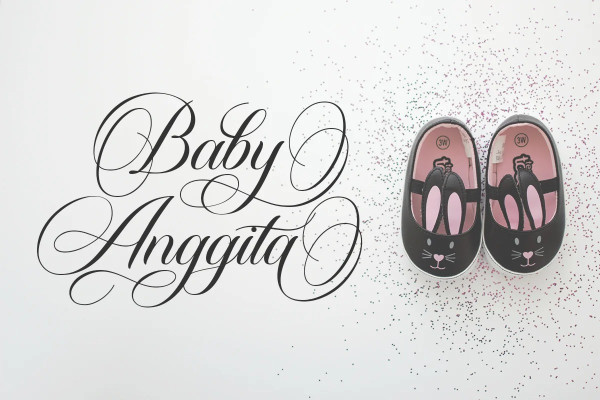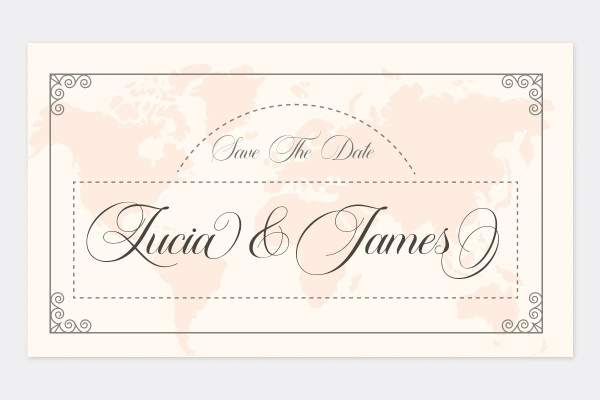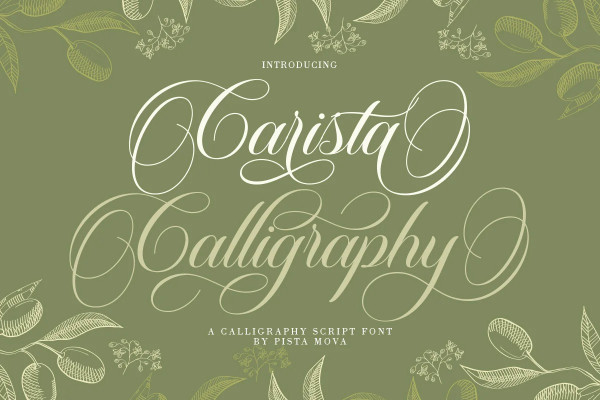
Carista Calligraphy Font
Carista Calligraphy Font is a classic font, I made it with my relaxed hand. Designing a classic font but has a modern element to it, which makes it perfect for wedding media, book covers, greeting cards, logos, branding, business cards and certificates, even for any design work that requires classic, formal or fancy.